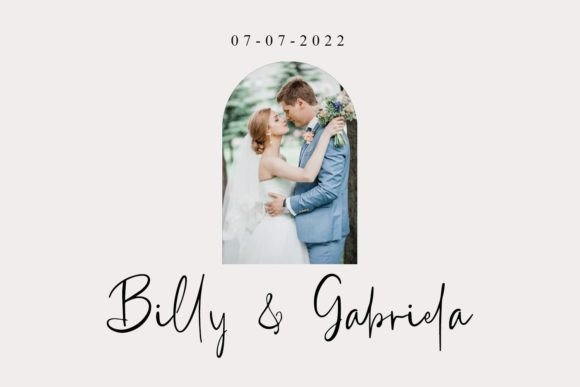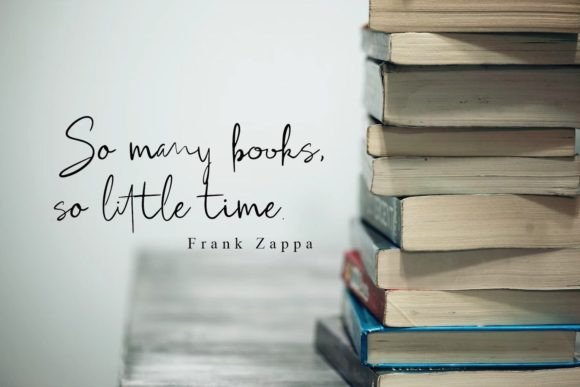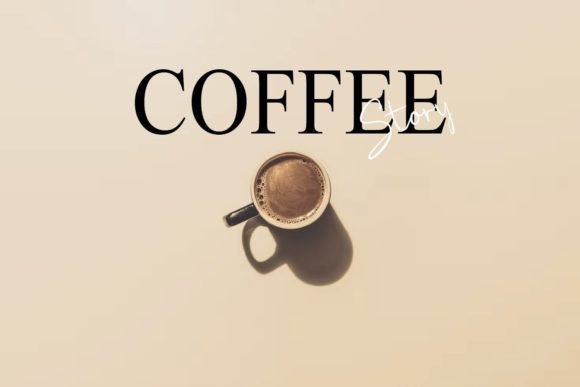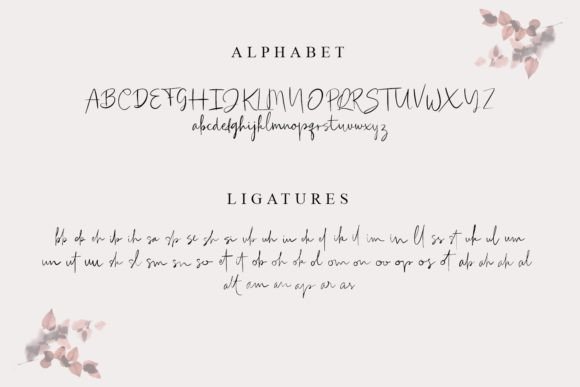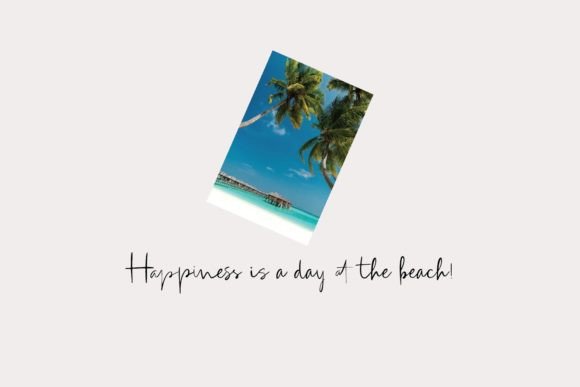
About Allure Font
“Allure” is an elegant handwritten font designed to enhance both formal and informal designs. Its attractive style makes it perfect for a range of creative projects, including logos, branding, quotes, and more. Adding “Allure” to your creative endeavors can elevate them, making them beautiful and outstanding.
The versatility of “Allure” allows it to seamlessly adapt to different design contexts. Picture it on an attractive logo where its elegant script adds a touch of sophistication. Imagine using it in branding materials to create a memorable and refined image for your business. Its handwritten charm makes it suitable for quotes that demand a personal and authentic touch.
One notable feature of “Allure” is its PUA encoding, providing easy access to a variety of glyphs and ligatures. This feature enhances your creative freedom, allowing you to explore and personalize your designs effortlessly. Whether you’re a seasoned designer or someone venturing into the world of creativity, “Allure” invites you to experiment with its elegant and versatile handwritten style.
As you integrate “Allure” into your design projects, let its elegance be the key element that makes your work stand out. Whether you’re working on formal invitations, branding materials, or any other creative project, “Allure” ensures that your designs exude beauty and sophistication, making a lasting impression on your audience.